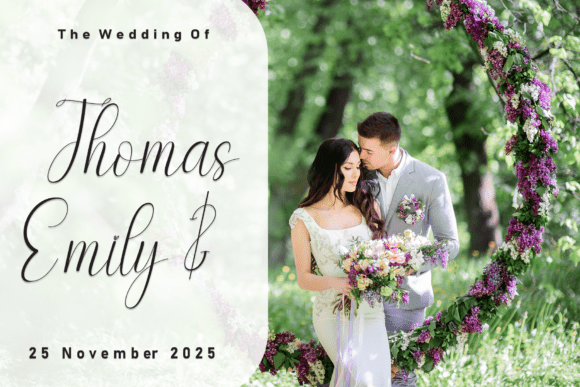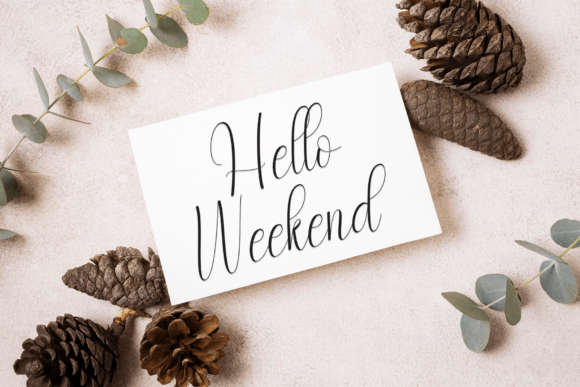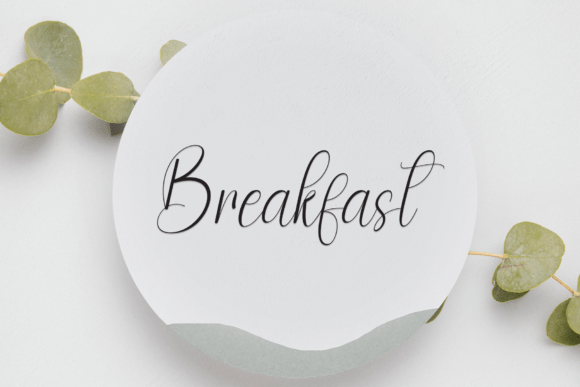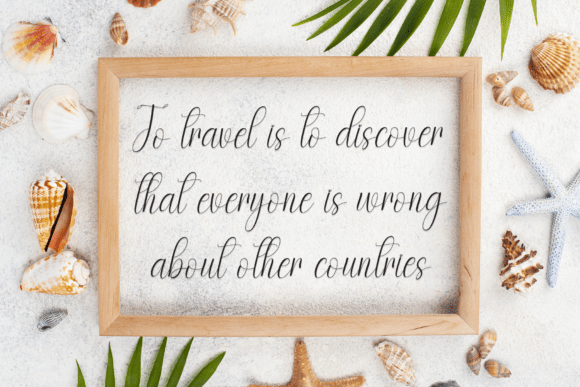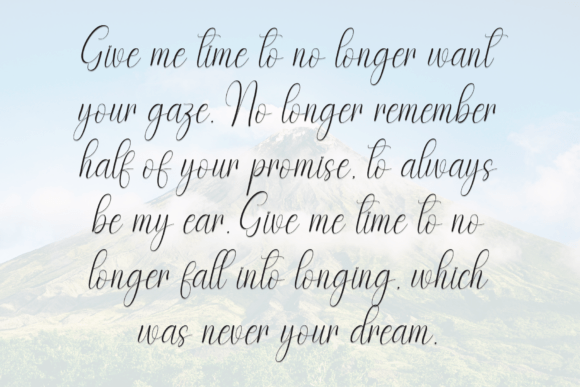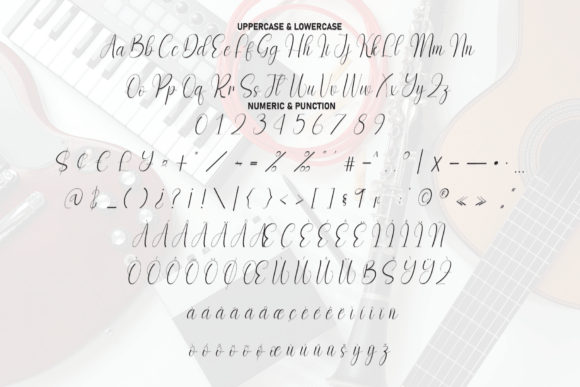
Introduction to Instrumental Font
Have you ever stumbled upon a design that just sparks creativity? Maybe it’s a stunning logo, an eye-catching poster, or a beautifully crafted social media graphic. For designers, moments like these can be incredibly inspiring, and often, the key to unlocking their full potential lies in the perfect font. Today, we’re shining the spotlight on the Instrumental Font, a stylish script font that’s poised to elevate your creative projects to new heights.
With its fluid brush strokes, dynamic curves, and expressive letterforms, the Instrumental Font is a true design treasure. Whether you’re working on a logo, invitation, packaging, or social media graphics, this font adds a touch of artistic flair and contemporary elegance that’s simply irresistible. And the best part? It’s available for a free download, making it an invaluable resource for designers of all levels.
Key Features of Instrumental Font
- High-quality font design with a transparent background, perfect for creative projects and design resources.
- Designed to provide a clean and modern look, ideal for use in logos, headings, and titles.
Honest Review: Instrumental Font
I recently stumbled upon the Instrumental Font, a free download that caught my attention with its sleek and modern design. As a designer, I’m always on the lookout for high-quality design resources that can elevate my creative projects.
What works well with this font is its versatility. It’s perfect for headings, titles, and even body text. The clean and minimalist design makes it an excellent choice for a wide range of creative projects, from brochures to social media graphics.
- ✨ High-quality design: The Instrumental Font is designed with precision, resulting in a smooth and professional look.
- ✨ Transparent background: The font has a transparent background, making it easy to layer over images or colors.
However, there are some limitations to keep in mind. The font is only available in a limited number of weights and styles, which might not be ideal for designers who need more flexibility.
Overall, I’m impressed with the Instrumental Font. While it may not be perfect, its high-quality design and versatility make it a valuable addition to any designer’s arsenal. Whether you’re working on a small project or a large-scale campaign, the Instrumental Font is definitely worth considering.
The Instrumental Font is a high-quality, free design resource perfect for creative projects that require a touch of sophistication and elegance. With its transparent background, this font is highly versatile and can be used in a variety of applications.
Tips for Getting the Most Out of Instrumental Font
To get the most out of the Instrumental Font, experiment with different font sizes, colors, and combinations. You can also use it in conjunction with other design elements to create a unique and eye-catching look.
The Instrumental Font is perfect for a wide range of applications, including wedding invitations, business cards, and social media graphics. Its elegant and sophisticated design makes it ideal for any project that requires a touch of class.